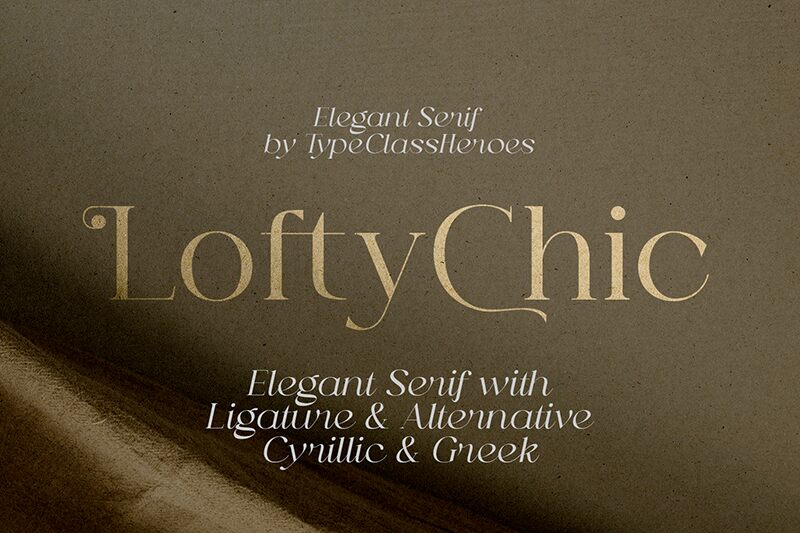
Lofty Chic Demo
Lofty Chic font designed by TypeClassHeroes is an elegant and refined serif typeface. Its modern design encapsulates a sophisticated atmosphere with minimalist aesthetics, making it suitable for those seeking a contemporary yet timeless look.